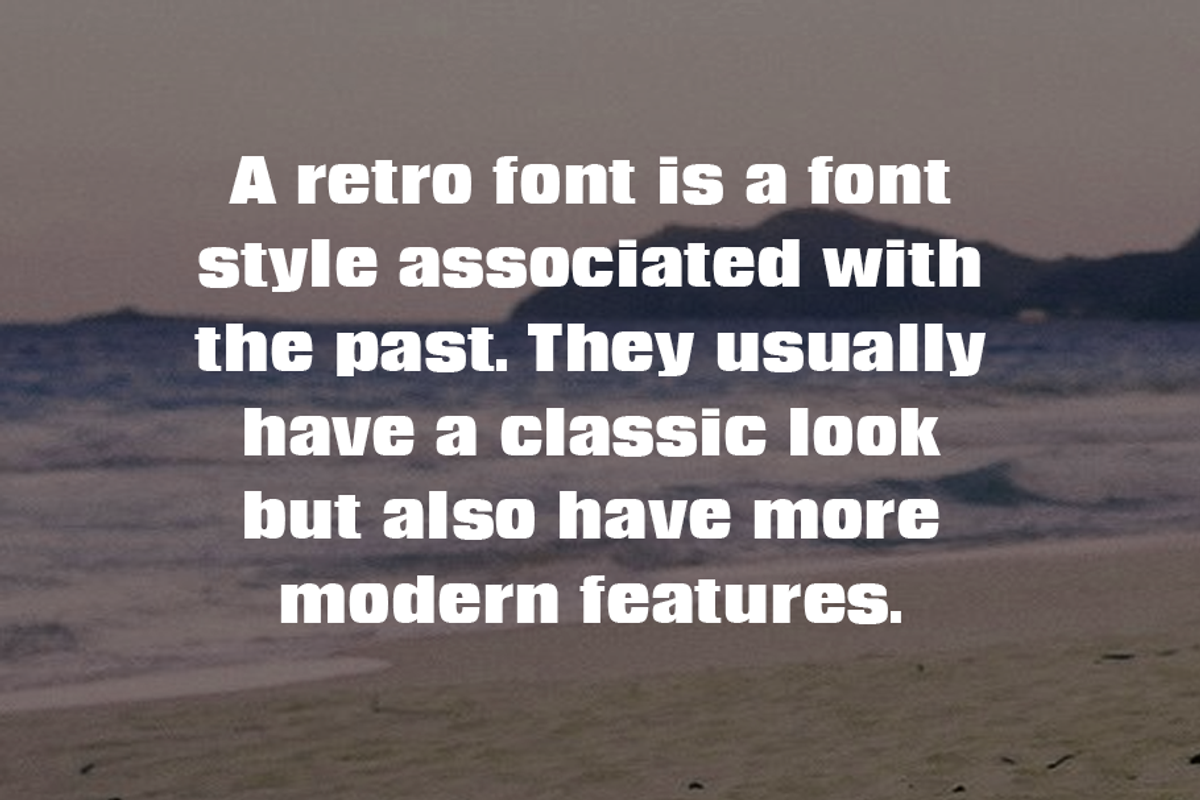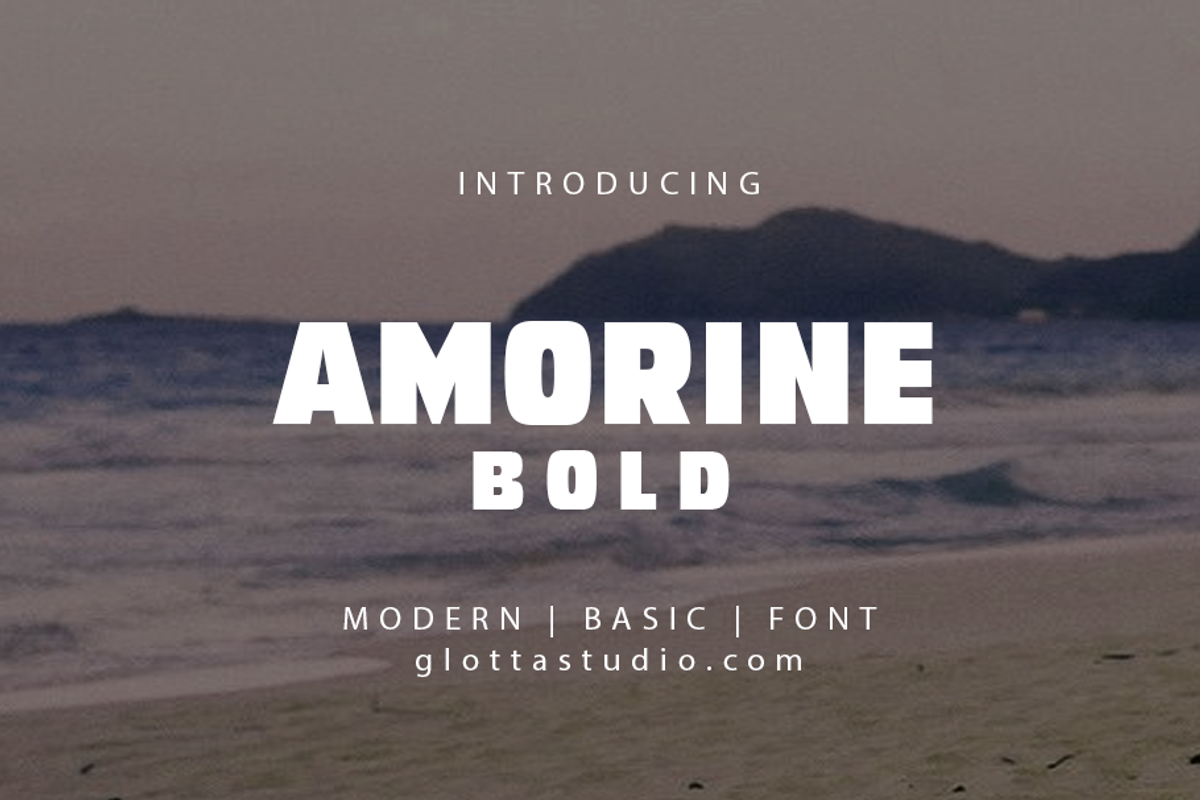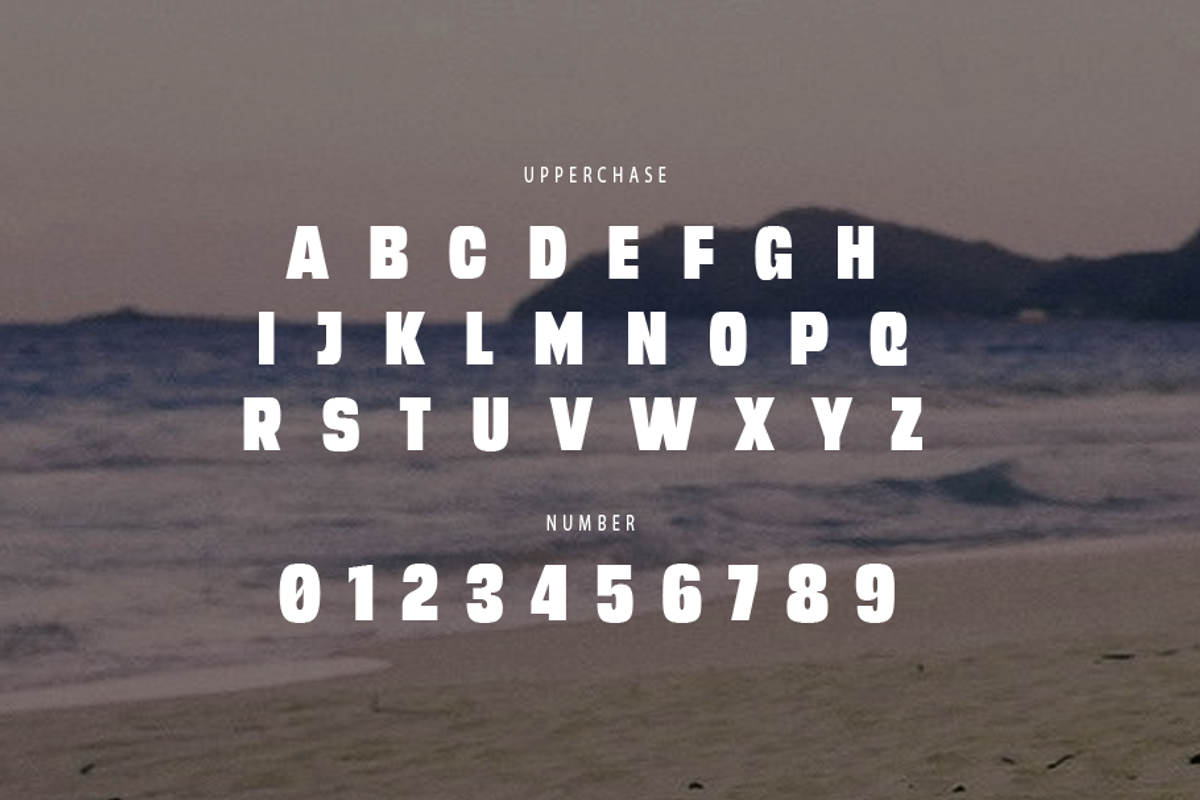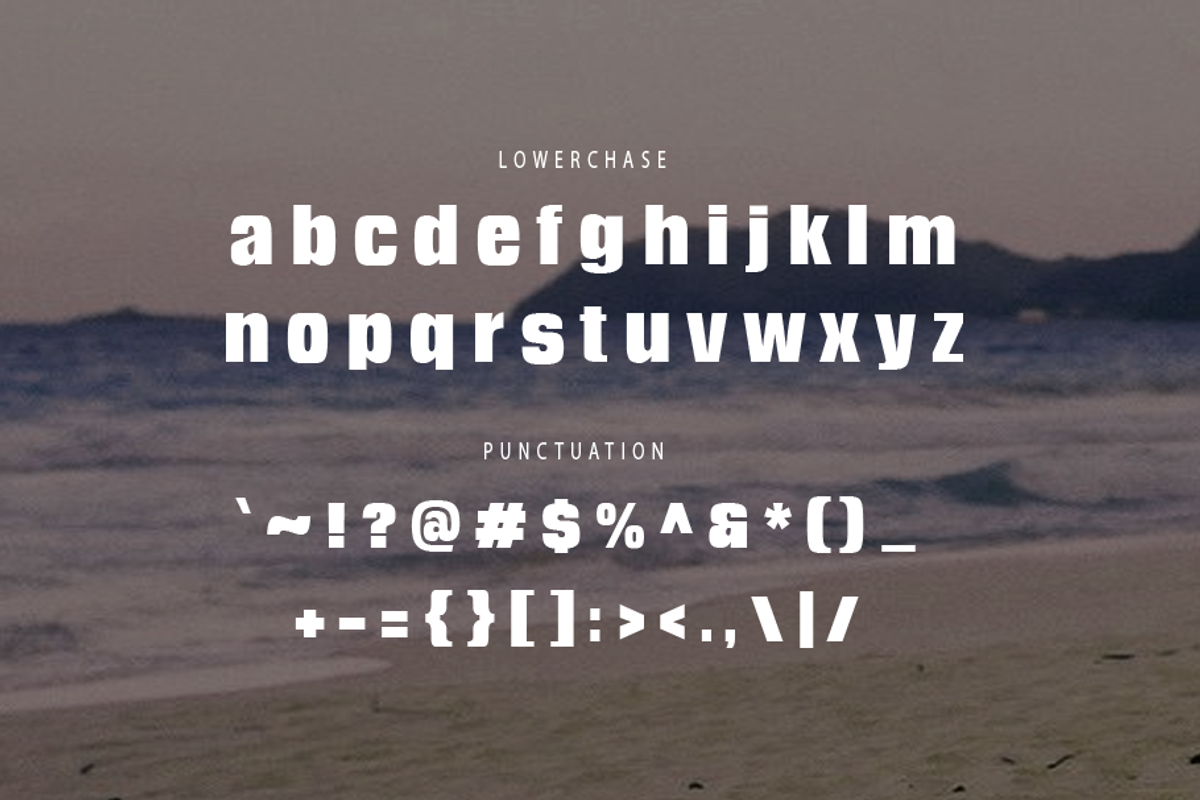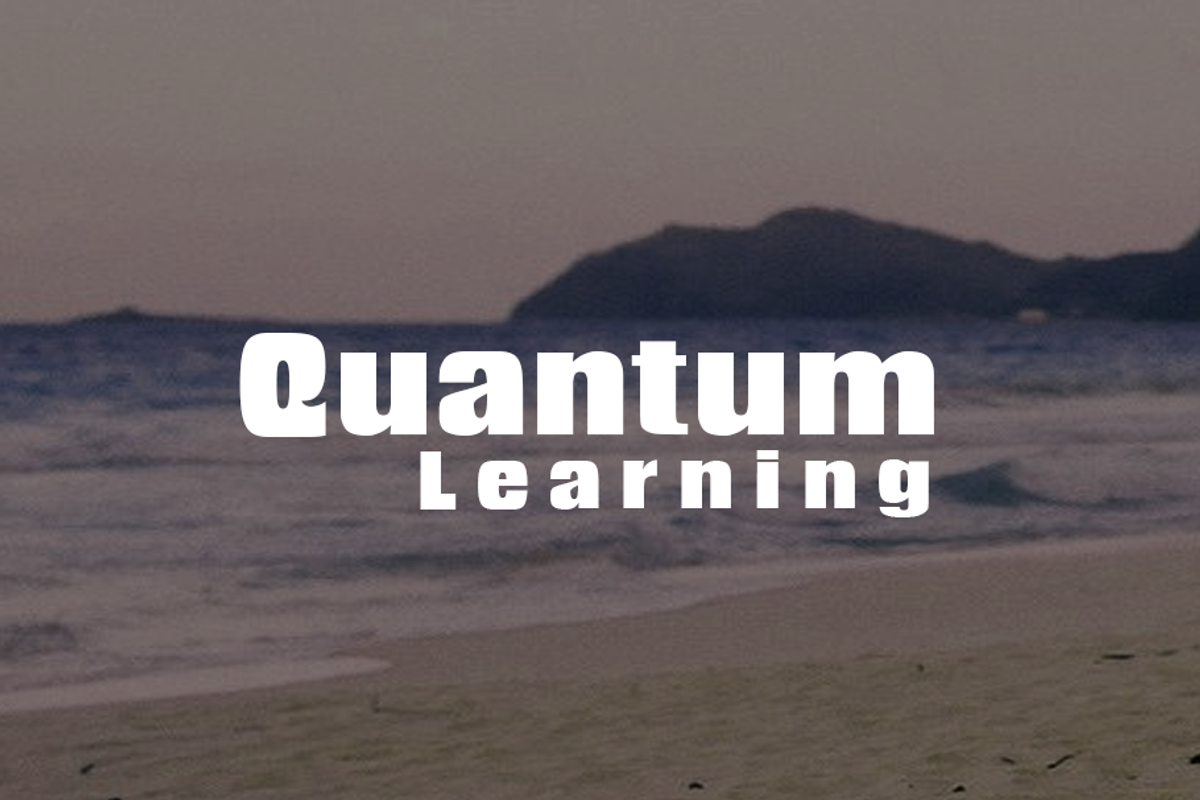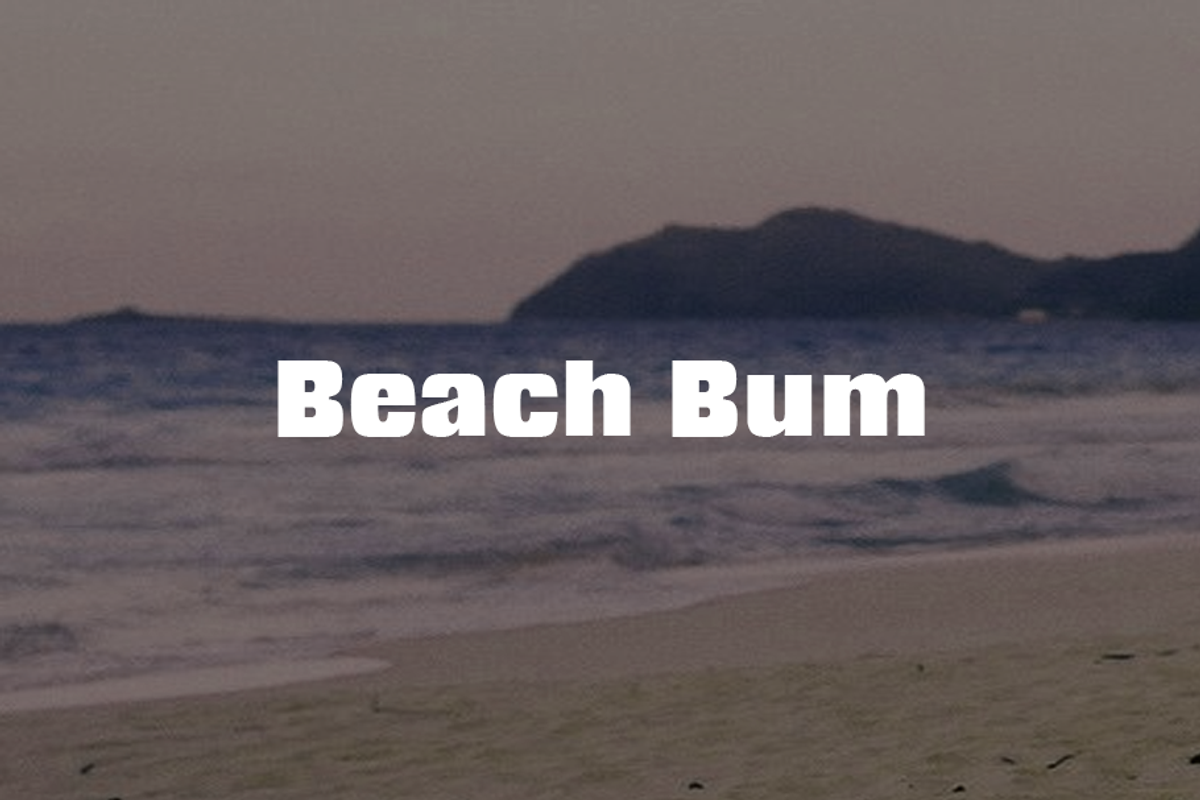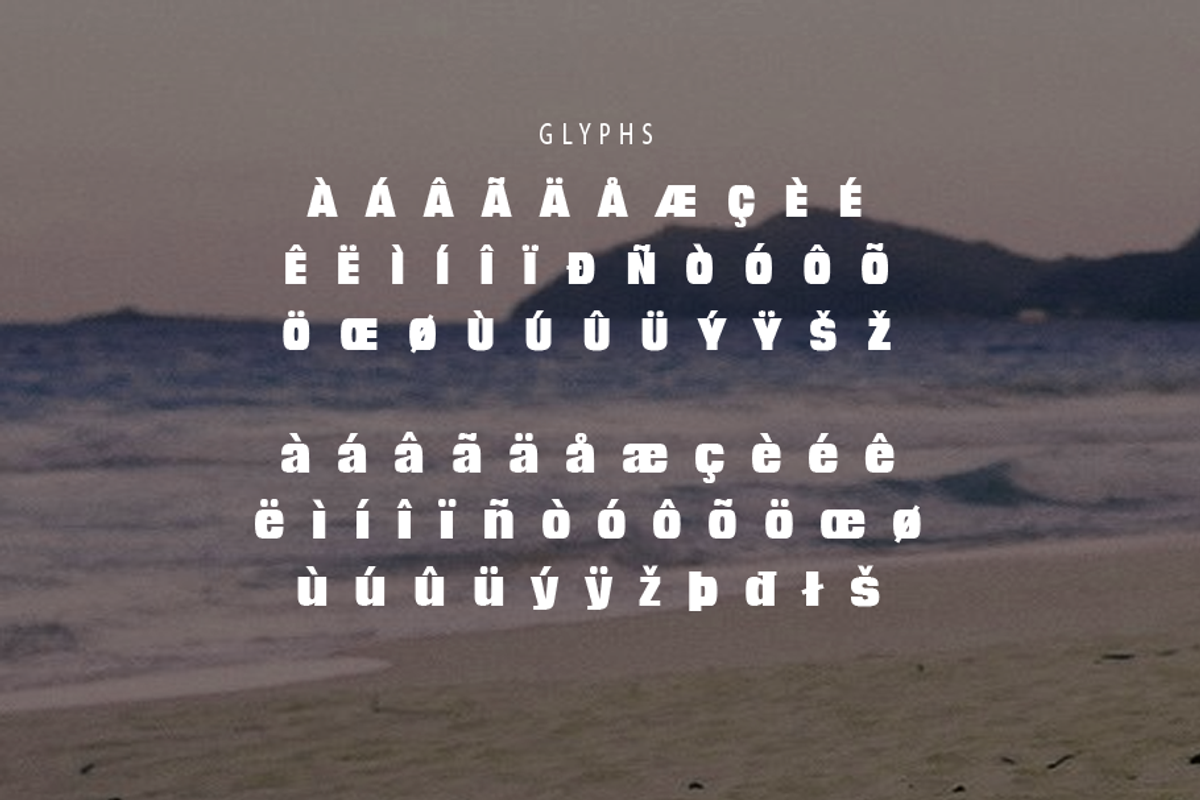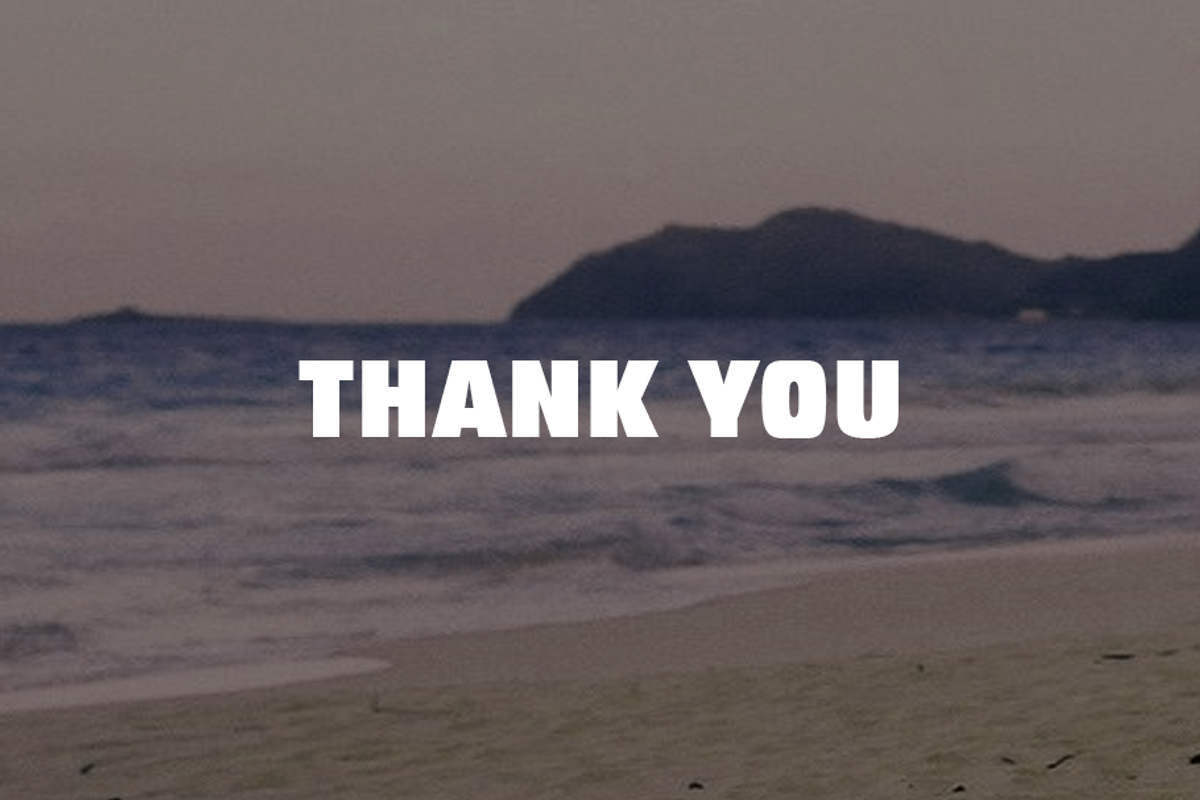
Amorine Bold
Amorine-Bold is classic font it’s looks cowboy text, Americans, classy and easy to use. Amorine-Bold is the great choice for watermark on movie industry, poster design, quotes, album cover, business card and many other design project. Amorine-Bold is here to make your work or your business to high level!!! Features
- Numerals and Functional
- Alternate and ligature